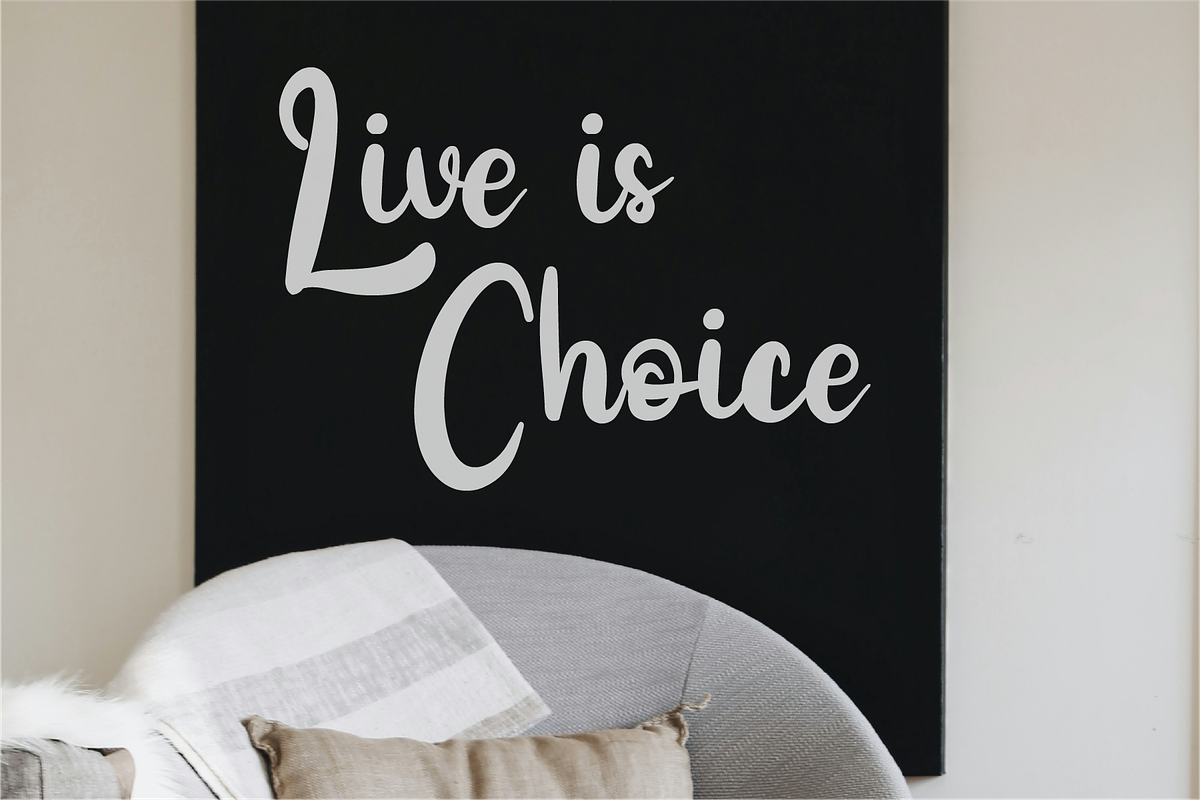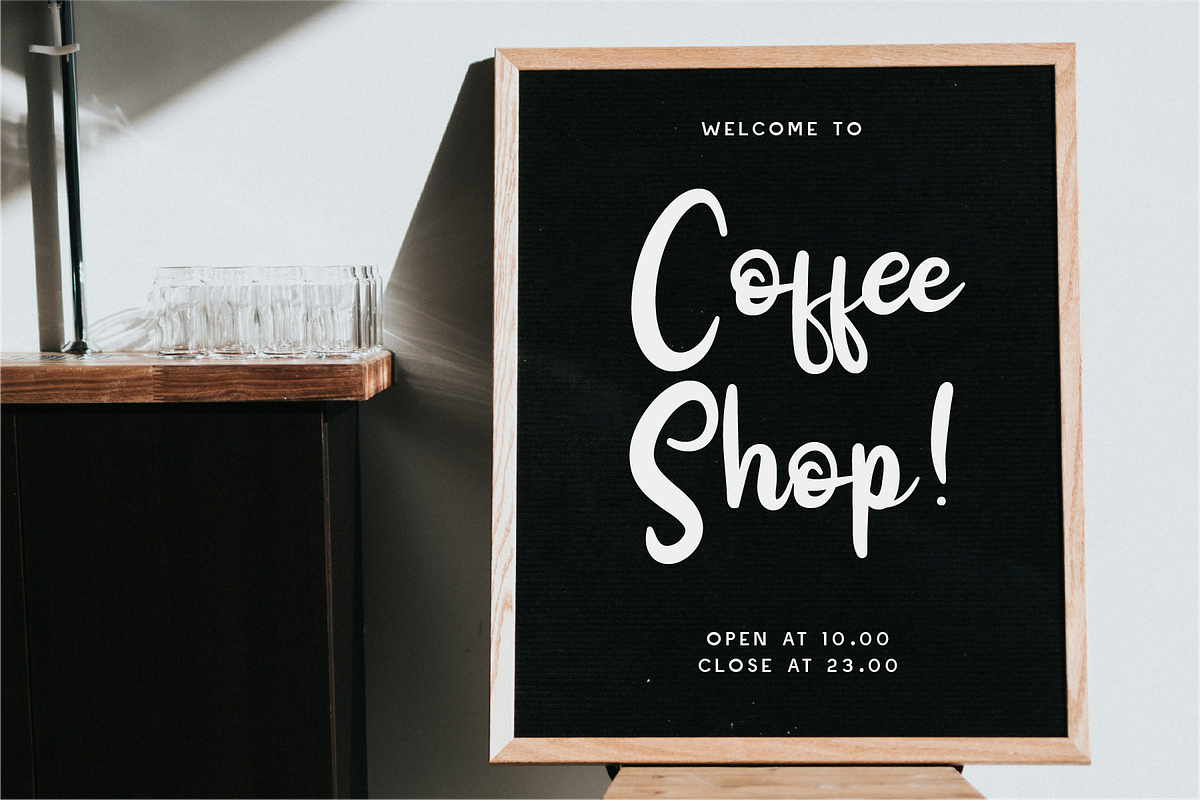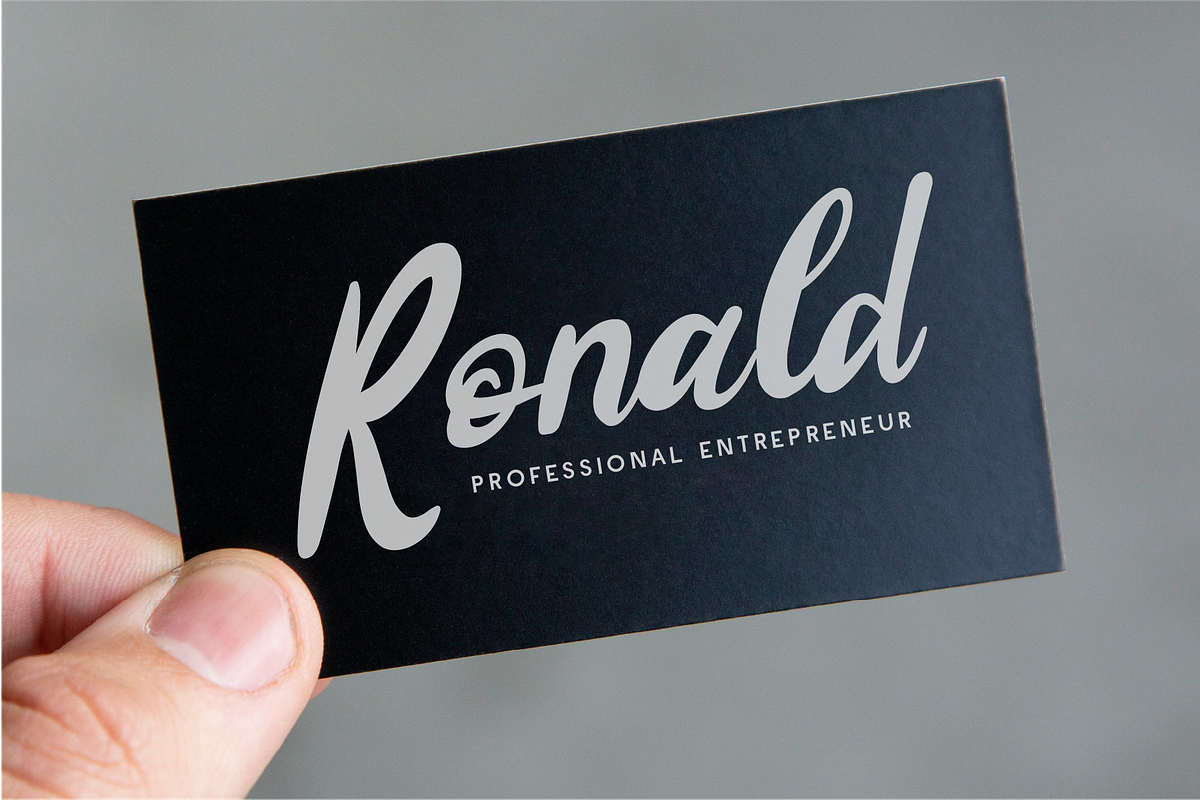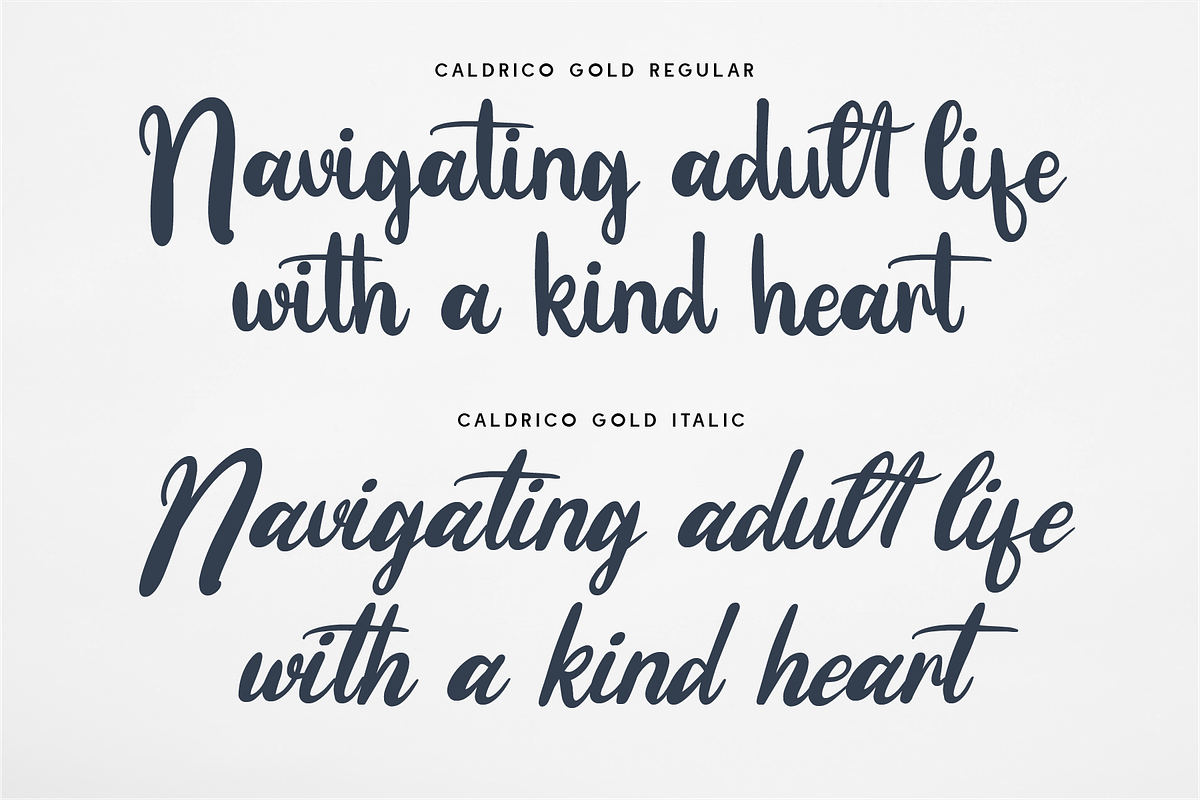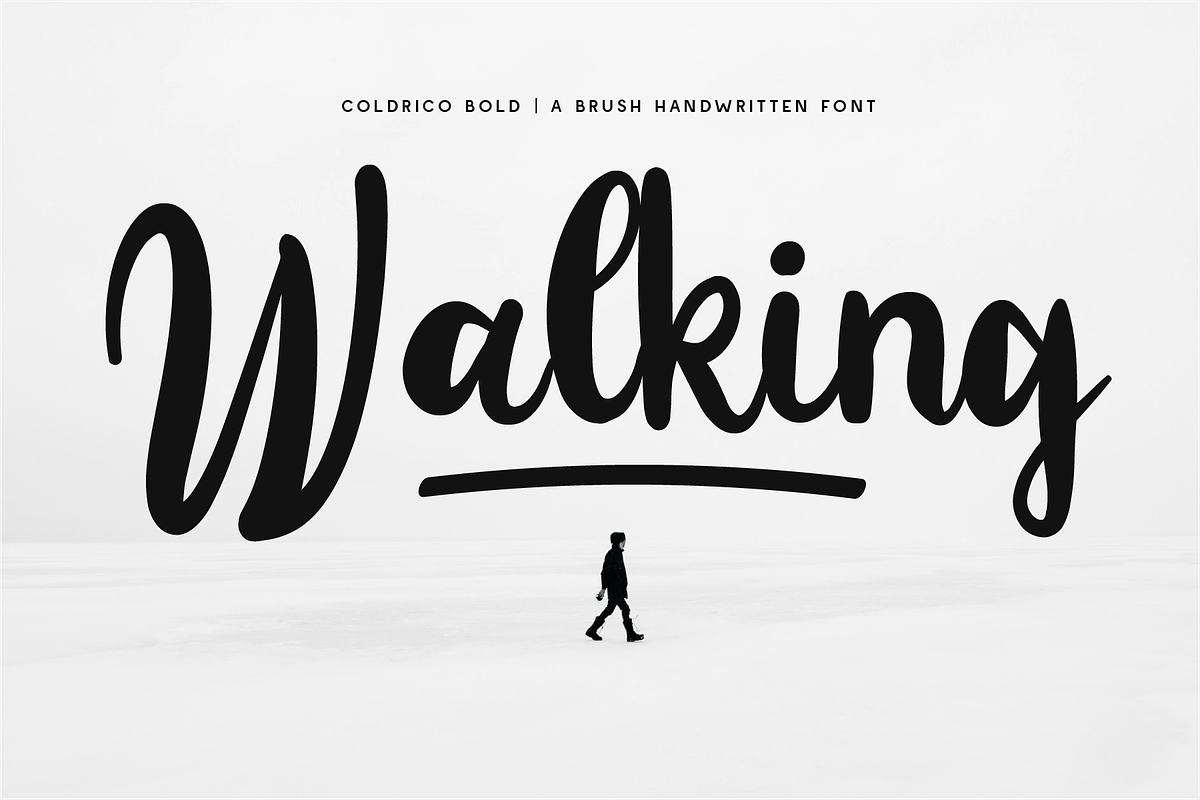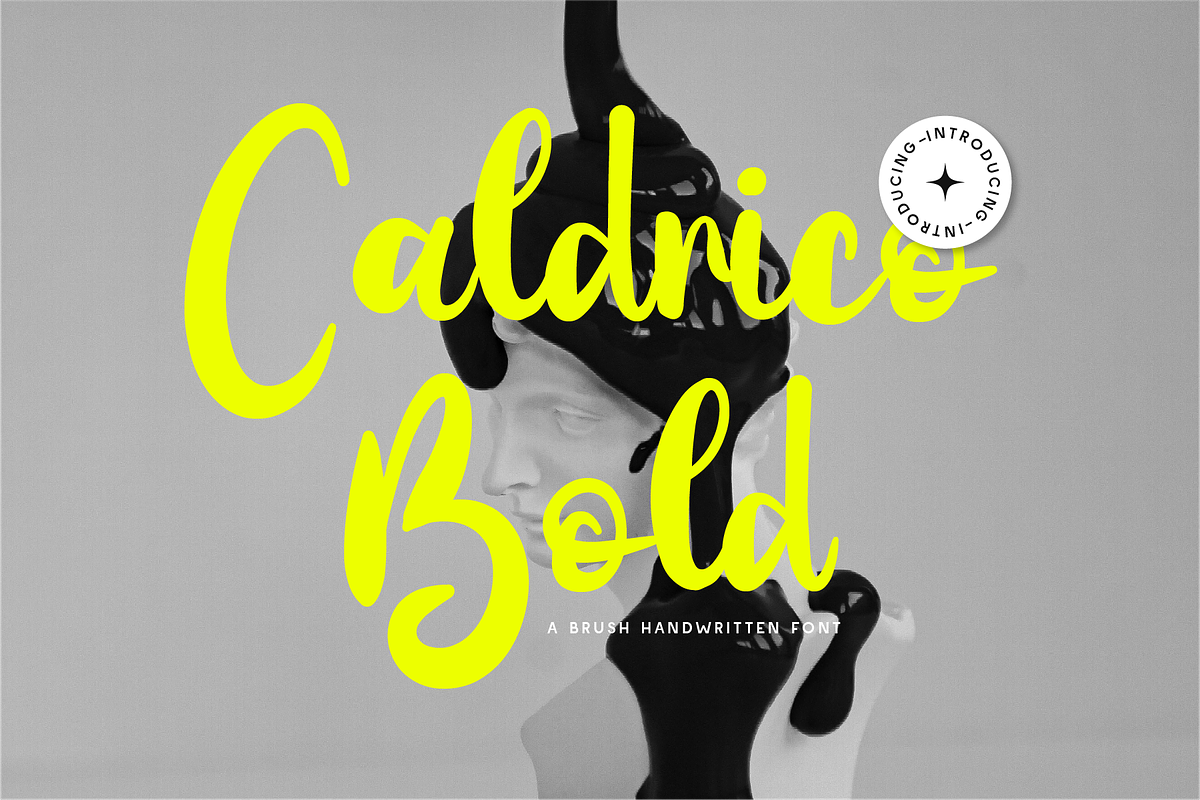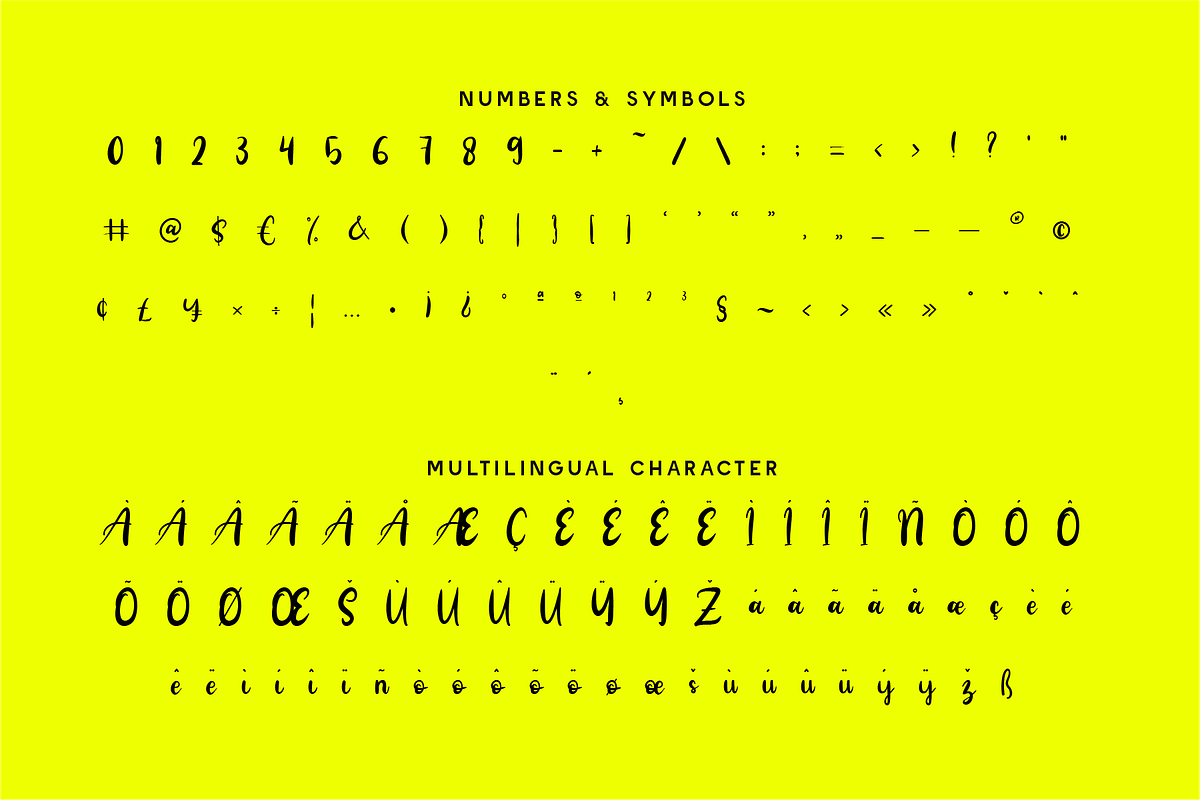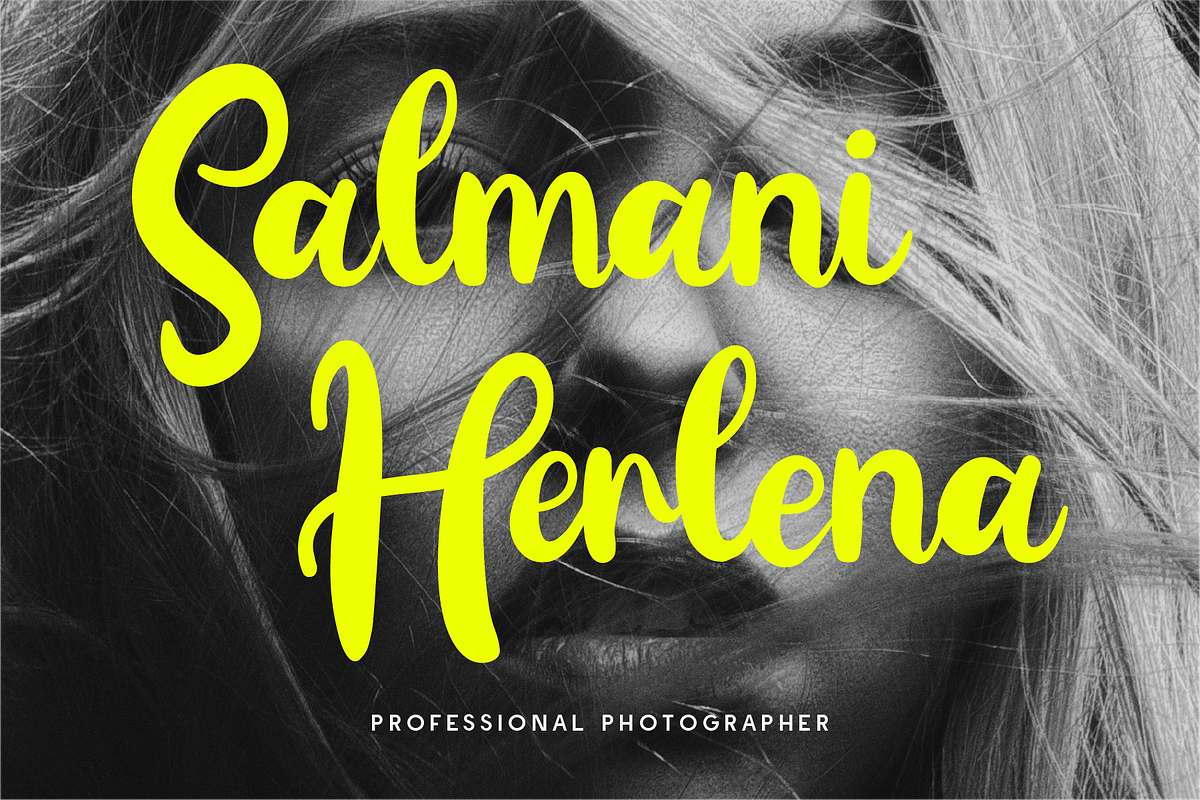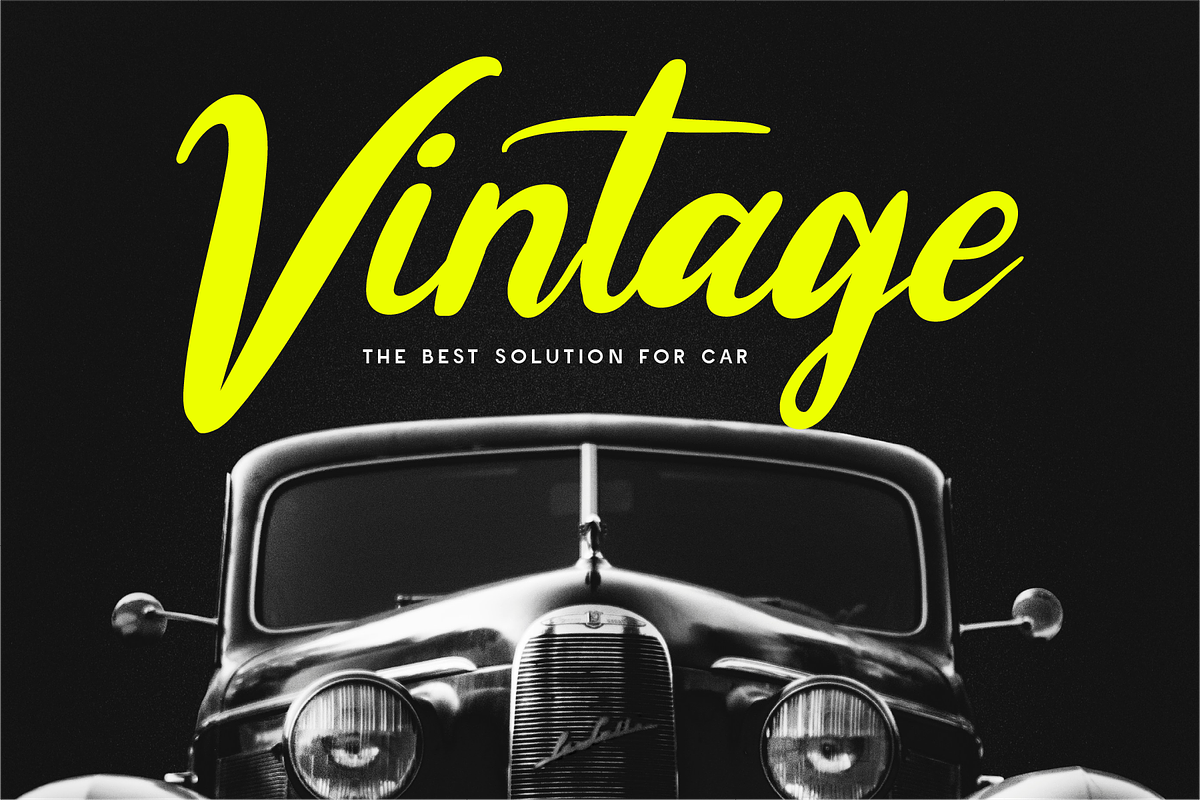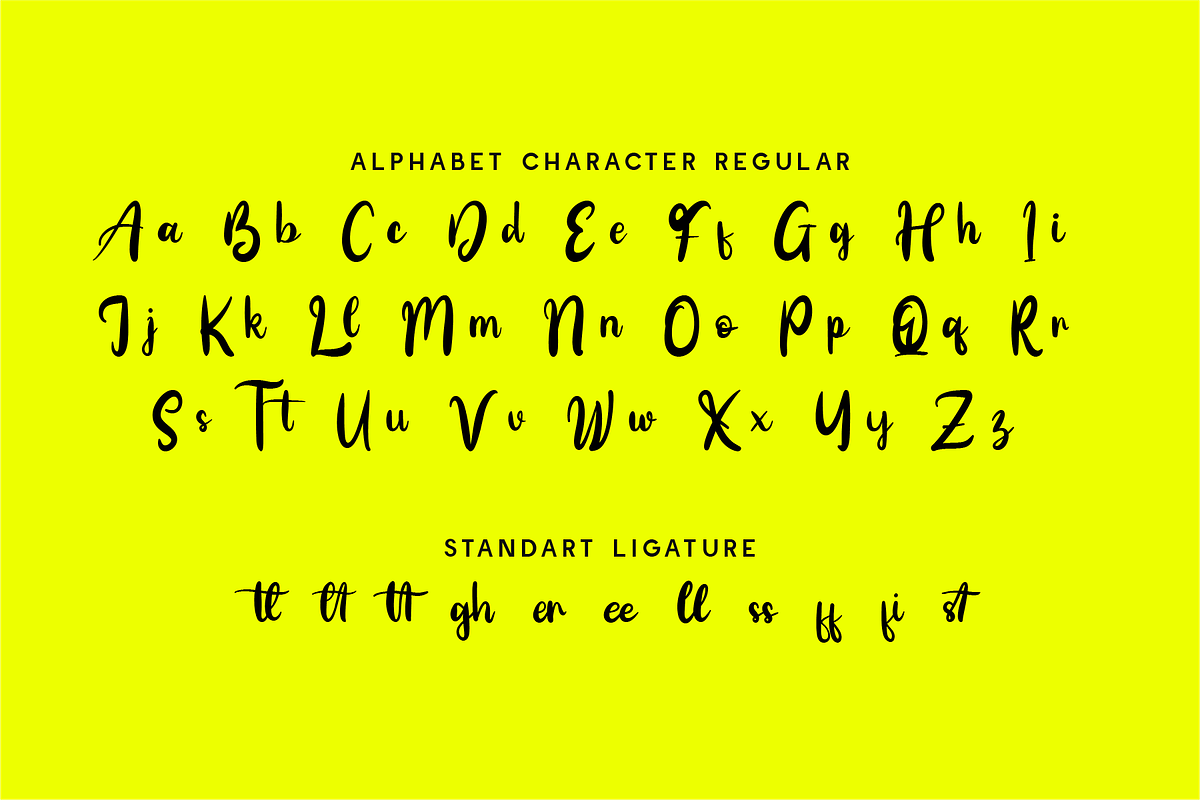
Caldrico Bold - Bold Script
Caldrico Bold – A Striking Brush Handwritten Font Unleash the energy of Caldrico Bold, a high-impact brush handwritten font designed for those who dare to stand out. With its bold strokes, fluid movement, and expressive letterforms, this typeface brings raw personality and artistic flair to any project. Perfect for branding, streetwear, advertising, product packaging, social media, and edgy editorial designs, Caldrico Bold exudes confidence and creativity. The handcrafted brush texture adds a natural yet rebellious vibe, making your words feel alive with motion and style.
Why Choose Caldrico Bold?
⚡ Bold & Expressive: Eye-catching brush strokes that demand attention. 🎨 Handcrafted Energy: A perfect mix of natural flow and urban edge. 🔥 Versatile & Impactful: Ideal for logos, posters, album covers, and more. 🖋 Authentic Brush Texture: Organic strokes that bring life to your designs. Make a statement with Caldrico Bold—a font that refuses to be ignored. Download now and add unstoppable energy to your creative projects! 🚀🎨
- Standard Character A-Z, a-z, 0-9, Punctuation & symbols
- Regular and Italic